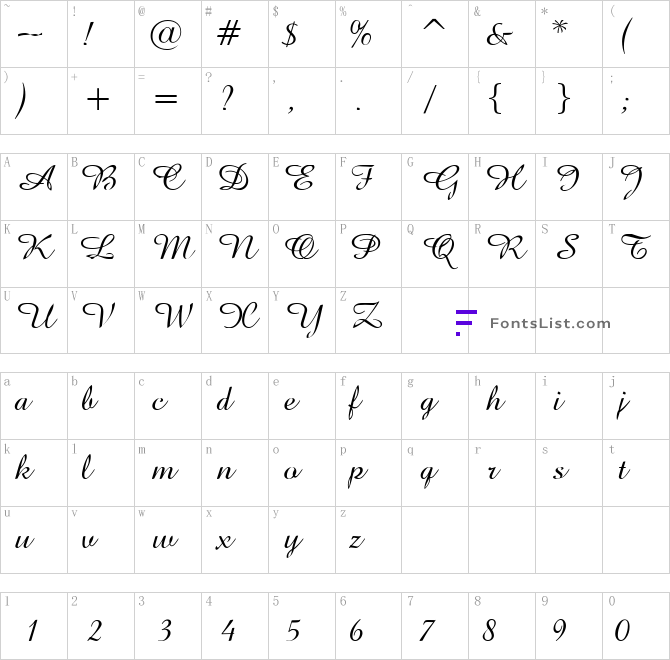
• Font Name:Amaze
• Subfamily:Normal
• Subfamily:FontMonger:Amaze Normal
• Full Name:Amaze Normal
• PostScript:AmazeNormal
Amaze-Normal.ttf is a very beautiful artistic font, Amaze-Normal.ttf is widely used in the design and printing of various books and pictures,Amaze-Normal.ttf has a strong visual impact,Amaze-Normal.ttf is a commonly used font in newspapers, magazines and books, and is used in posters, e-commerce Poster design, store design, logo design, font design and other fields.Amaze-Normal.